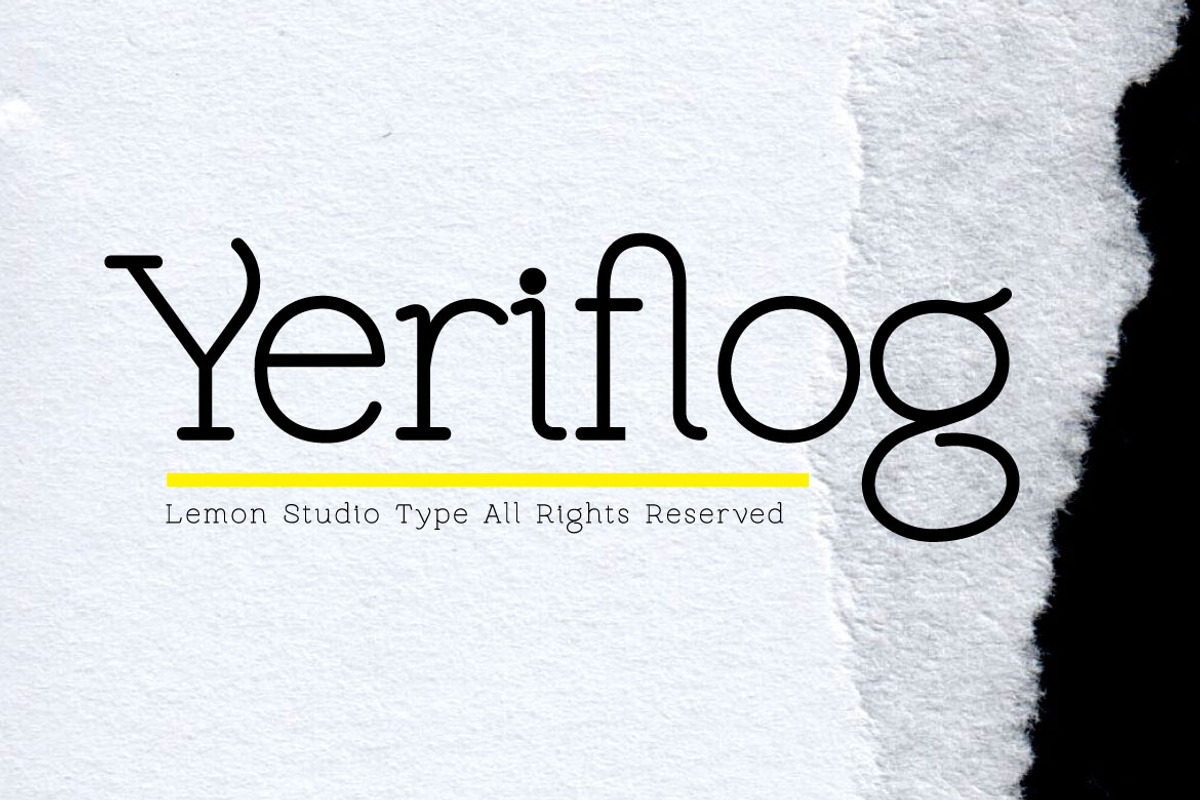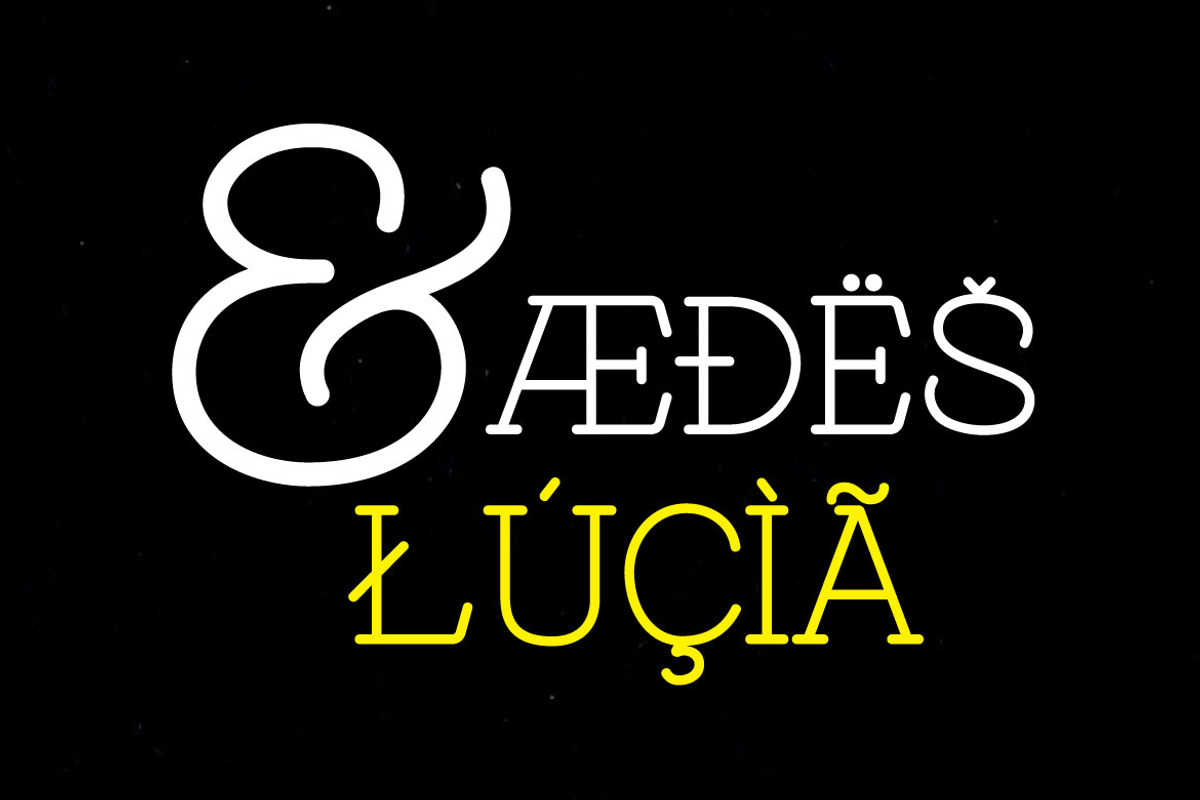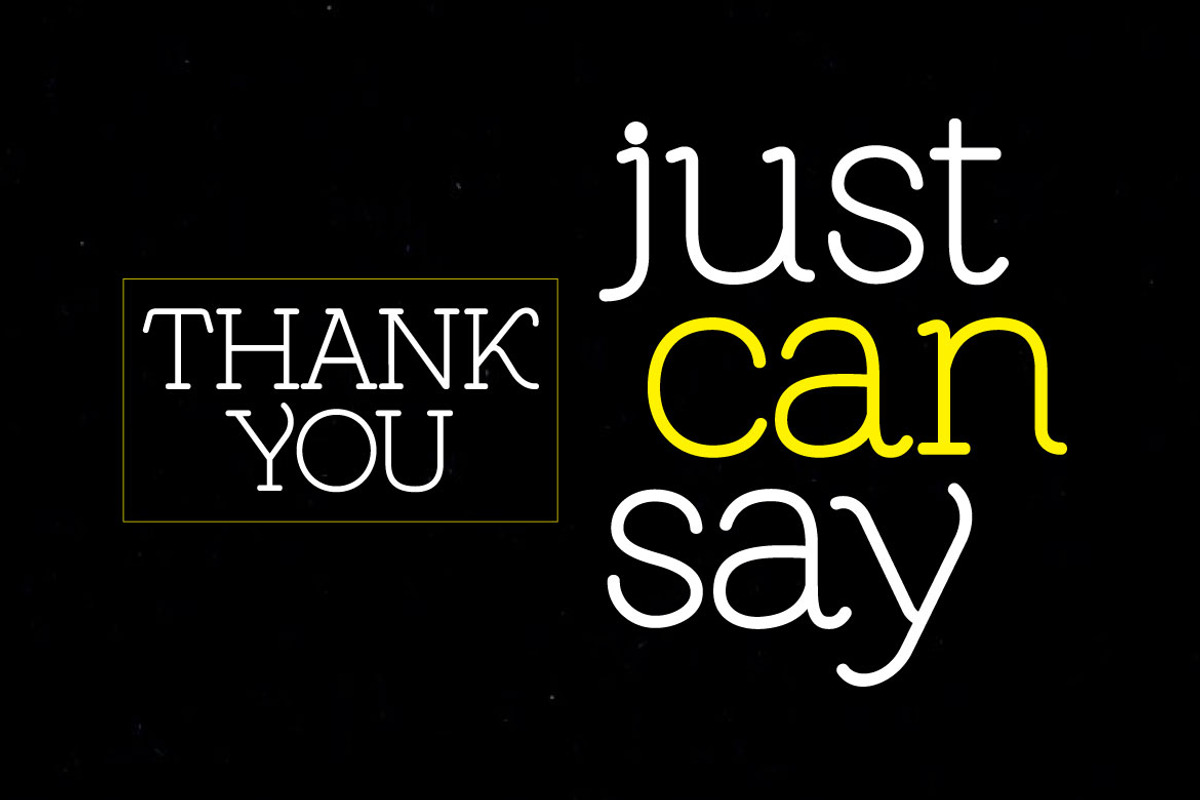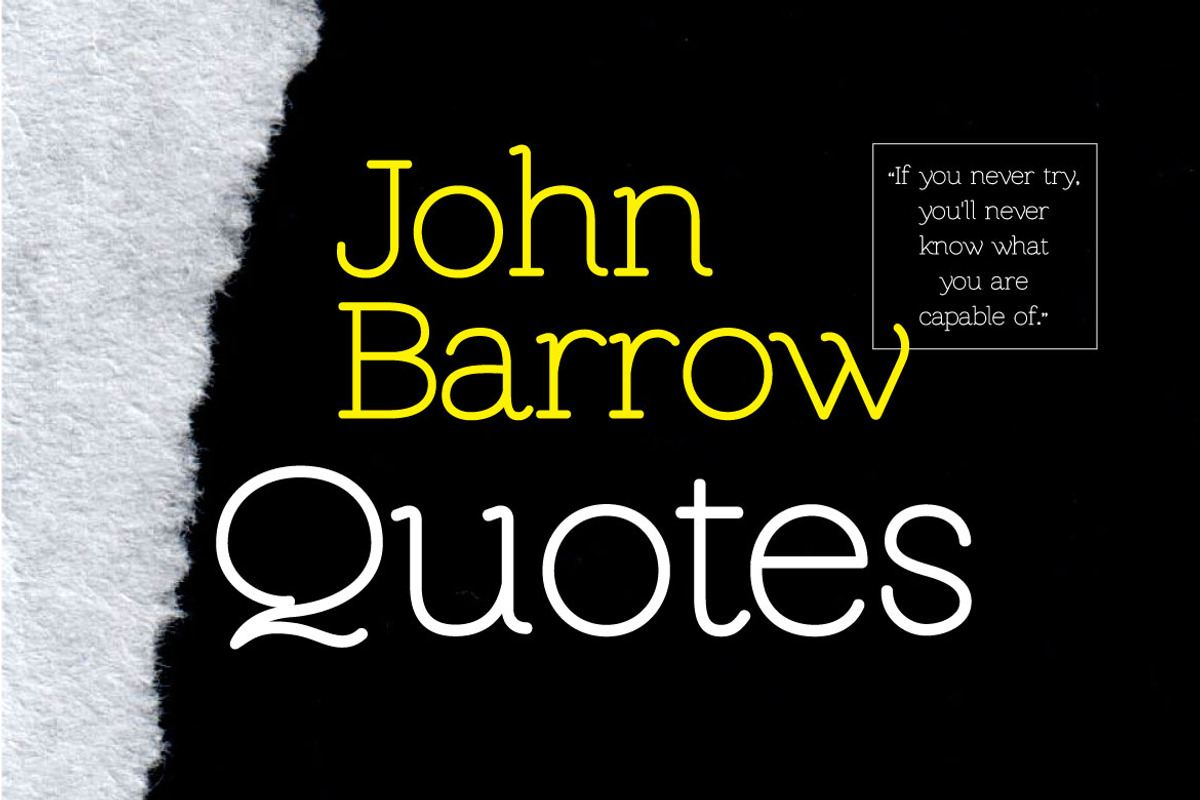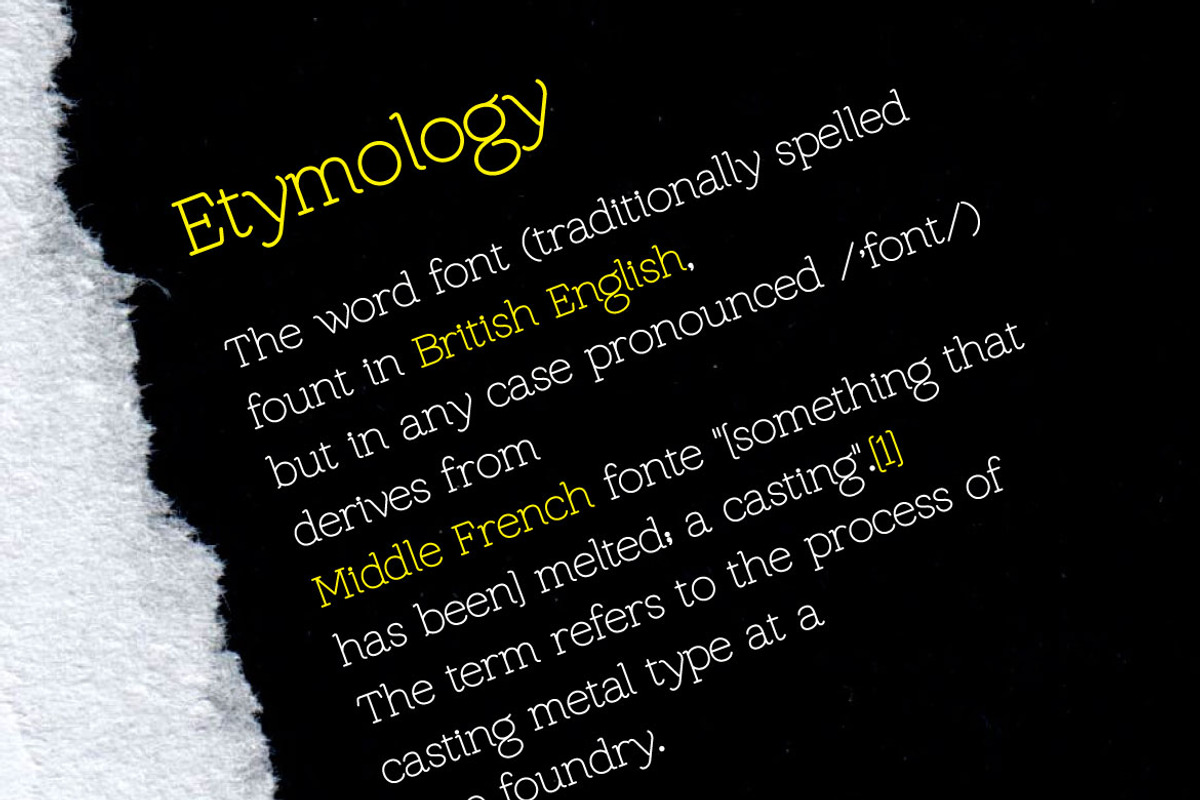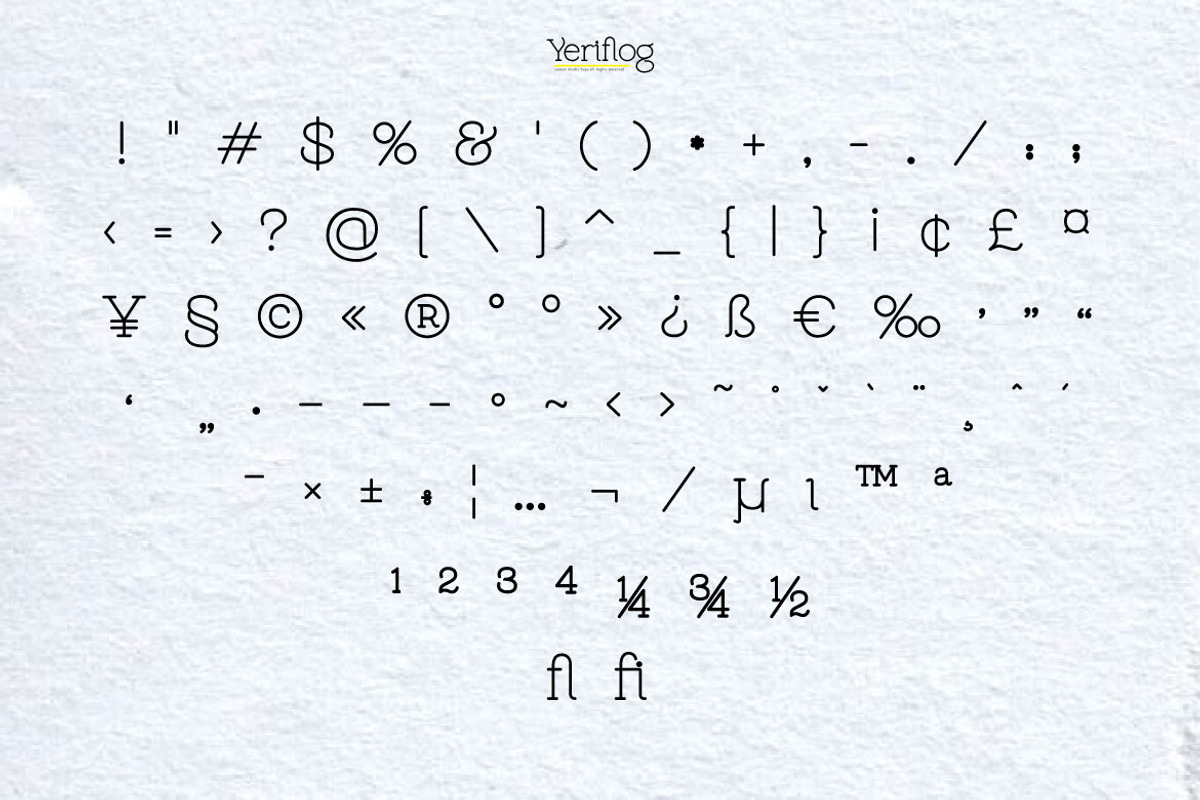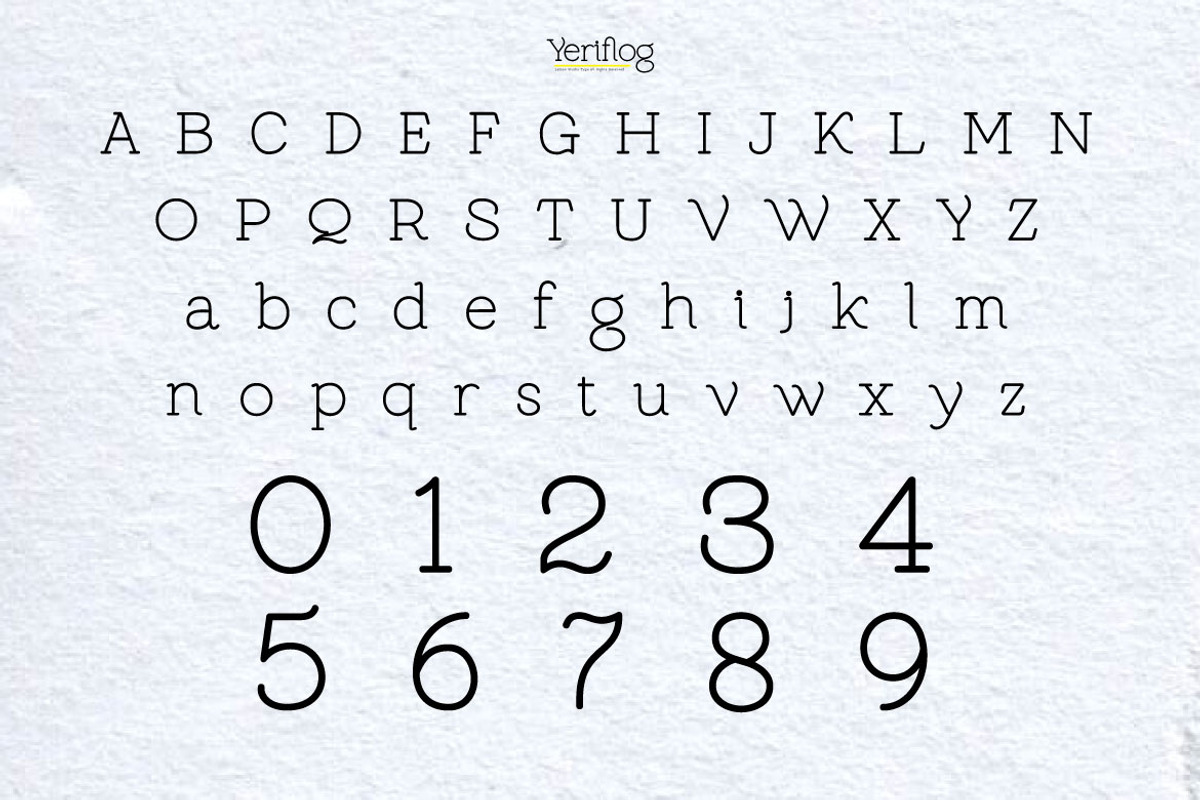
Yeriflog - Edgy Slab
Yeriflog is a slab serif font. The shapes give a modern contemporary touch and the rounded edges of the monoline make it look so special.
Yeriflog so perfect for headings, because it's so readable when you used it.
STANDARD CHARACTER SET
OPEN TYPE FEATURES:
-Standard Ligatures
Fractions
Superscript
-Multilingual Support.